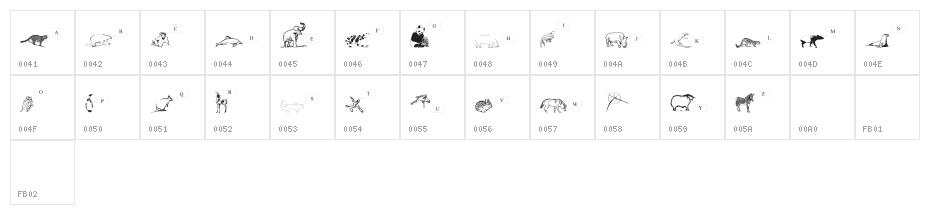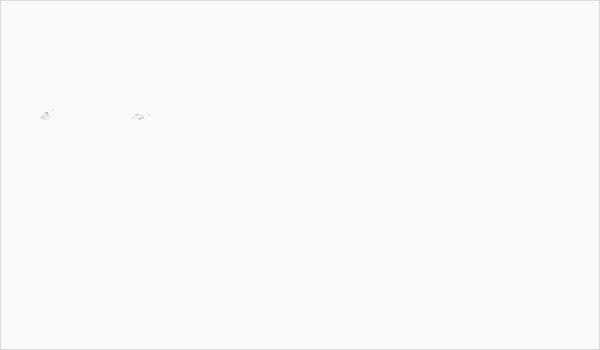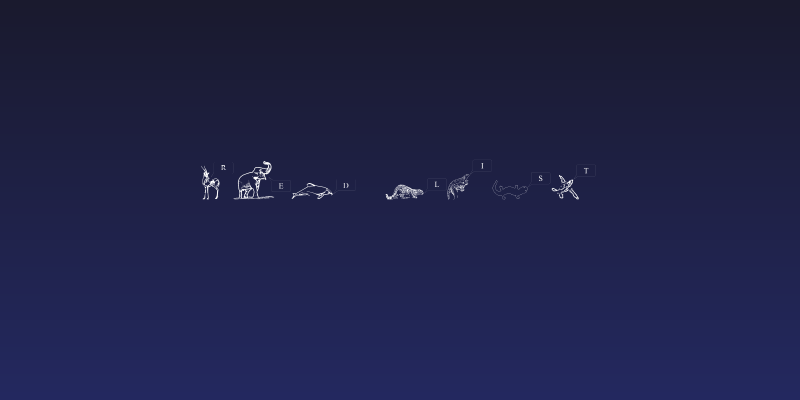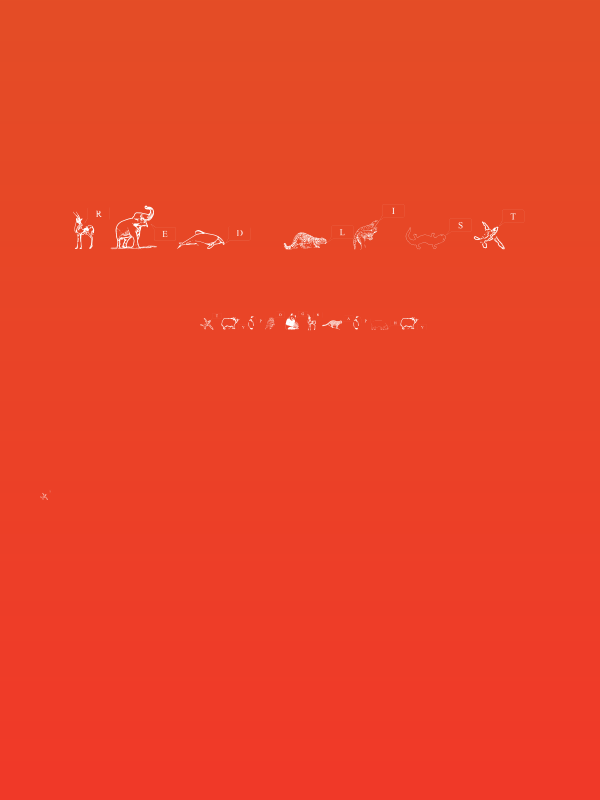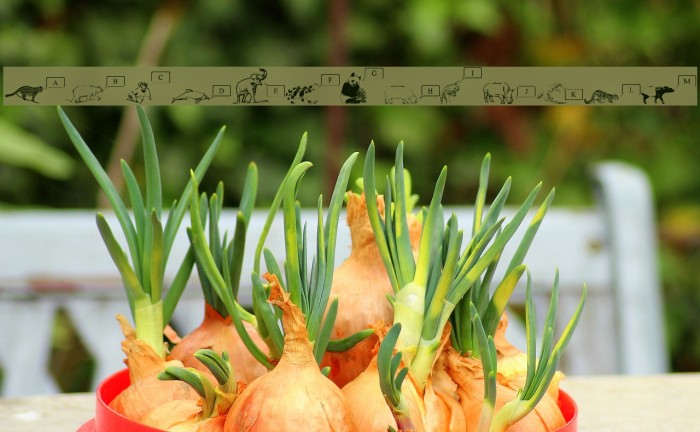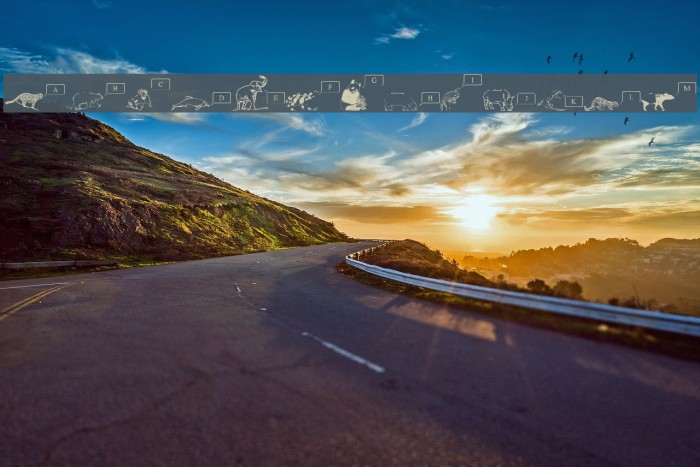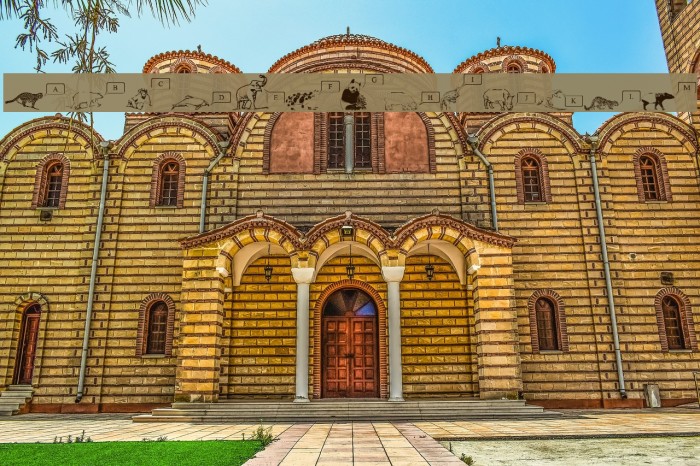
red list Font
red list Description
A playful decorative font where each letter is paired with a detailed black-and-white illustration of a different animal, creating an educational and whimsical visual effect. The letters are uppercase, enclosed in boxes, and positioned near or on the animals.
| Overall Style | Decorative, Whimsical, Educational |
| Use Case | Headlines, Posters, Educational Materials, Logos |
| Proposed Projects | Children’s books, educational posters, zoo signage, animal-themed party invitations, playful branding. |